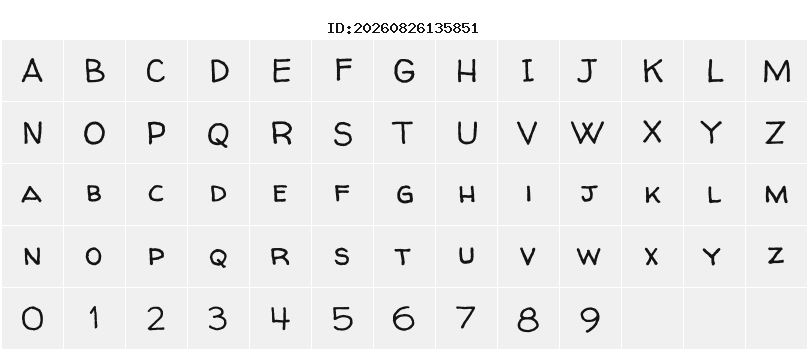
Walter Turncoat Preview
• Font Name: Walter Turncoat
• Designer: Squid
• Manufacturer: Font Diner, Inc DBA Sideshow
About Walter Turncoat.ttf
Walter Turncoat.ttf is a modern, elegant sans-serif font designed for ultimate readability and visual harmony. Perfect for branding, headlines, web design, and print materials.